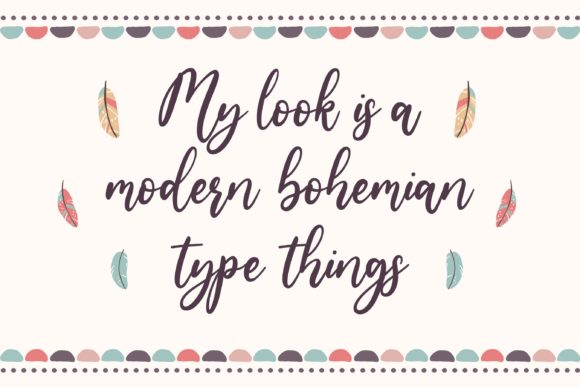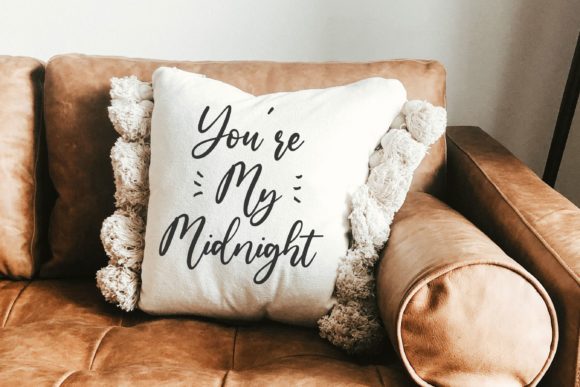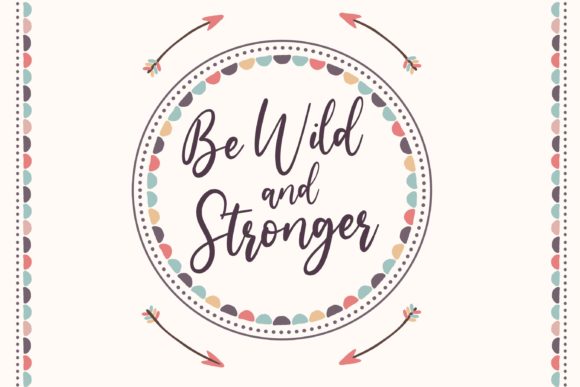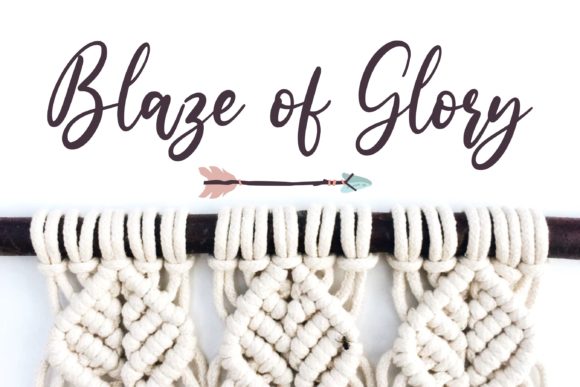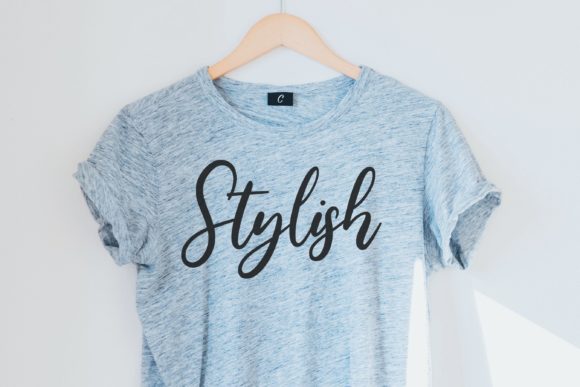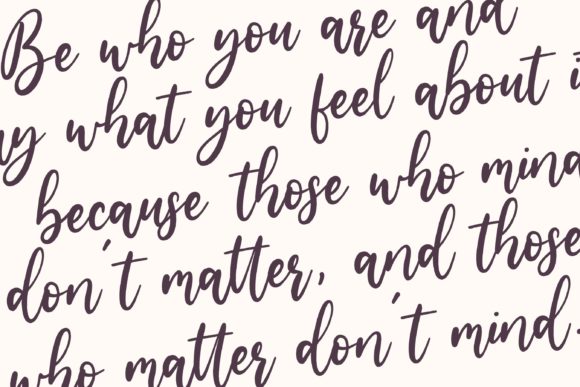
The Charm of Bowhead Font: A Designer’s Delight
I’ll never forget the time I was working on a wedding invitation project, and my client asked for a font that was both elegant and playful. I scoured the internet, trying out font after font, but nothing seemed quite right. That was until I stumbled upon Bowhead Font. ✨ It was love at first sight! The charming, relaxed vibe of this font instantly captured the essence of the project, and I knew I had found the perfect fit.
An Honest Review of Bowhead Font
- ✨ Elegant yet relaxed, making it perfect for a variety of design projects
- ✅ Beautiful handwritten touch that’s perfect for wedding invitations, thank you cards, and greeting cards
- 💕 Works well for logos, business cards, and quotes, adding a touch of personality to any design
- 🎉 OpenType features, glyphs, and stylistic alternates provide endless creative possibilities
- 🤔 May not be suitable for very formal or corporate designs, as it has a more playful tone
- ⚠️ Some users may find the font a bit too ornate or decorative for certain projects
The Backstory of Bowhead Font
Bowhead Font was designed with the intention of creating a beautiful, handwritten font that captures the essence of elegance and playfulness. The designer aimed to create a font that would be perfect for a variety of design projects, from wedding invitations to logos and business cards. With its charming and relaxed vibe, Bowhead Font has become a popular choice among designers and crafters.
Q: What type of designs is Bowhead Font best suited for?
A: Bowhead Font is perfect for designs that require a handwritten touch, such as wedding invitations, thank you cards, greeting cards, logos, and business cards.
Q: Is Bowhead Font available in different styles or weights?
A: Yes, Bowhead Font comes in different styles and weights, allowing you to experiment with different looks and feels in your designs.